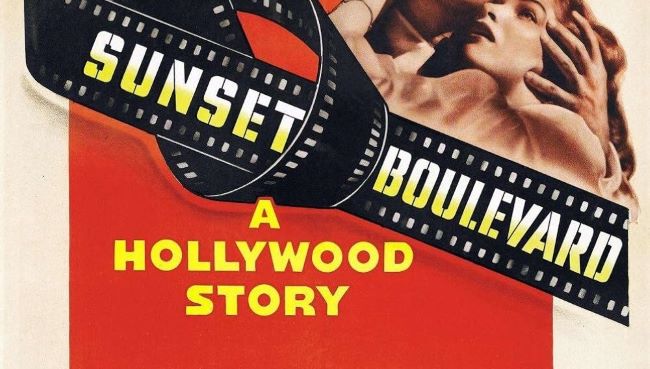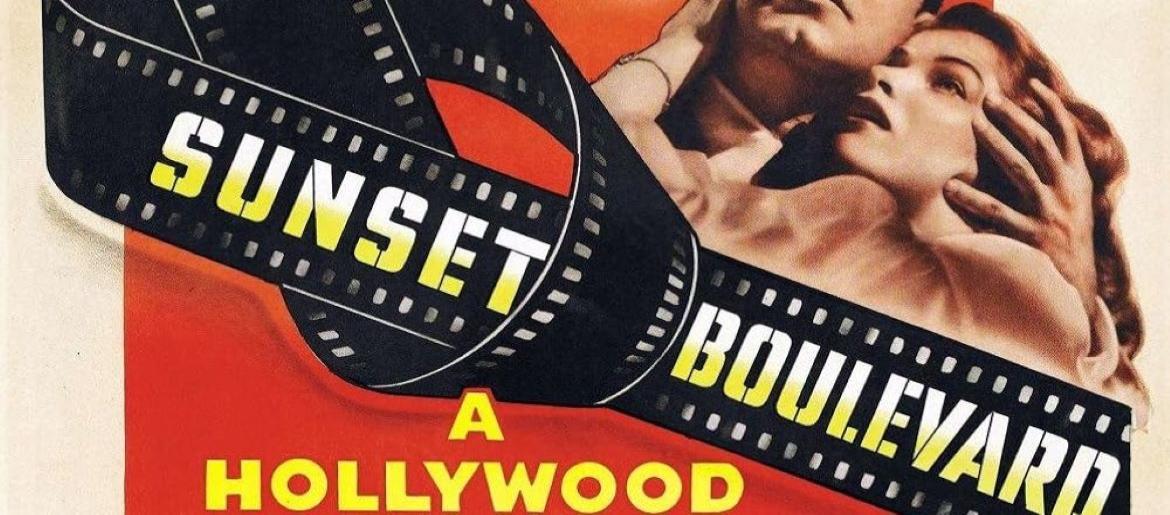
Sunset Boulevard Font
The Sunset Boulevard font perfectly reflects the glamour, drama, and dark intrigue of Billy Wilder’s 1950 classic. Just like the film, which exposes the hidden shadows behind Hollywood’s bright lights, the Sunset Boulevard font combines elegance with a touch of vintage sophistication, making it instantly memorable. In the original posters, the lettering is tall, serifed, and slightly elongated, capturing both the luxury of old Hollywood and the haunting undertones of Norma Desmond’s world.
The Sunset Boulevard font is more than just a typeface—it’s a tribute to Hollywood’s golden age, where beauty, ambition, and tragedy coexist. Its elegant and dramatic design makes it perfect for designers seeking a vintage, cinematic feel that commands attention and evokes classic storytelling.